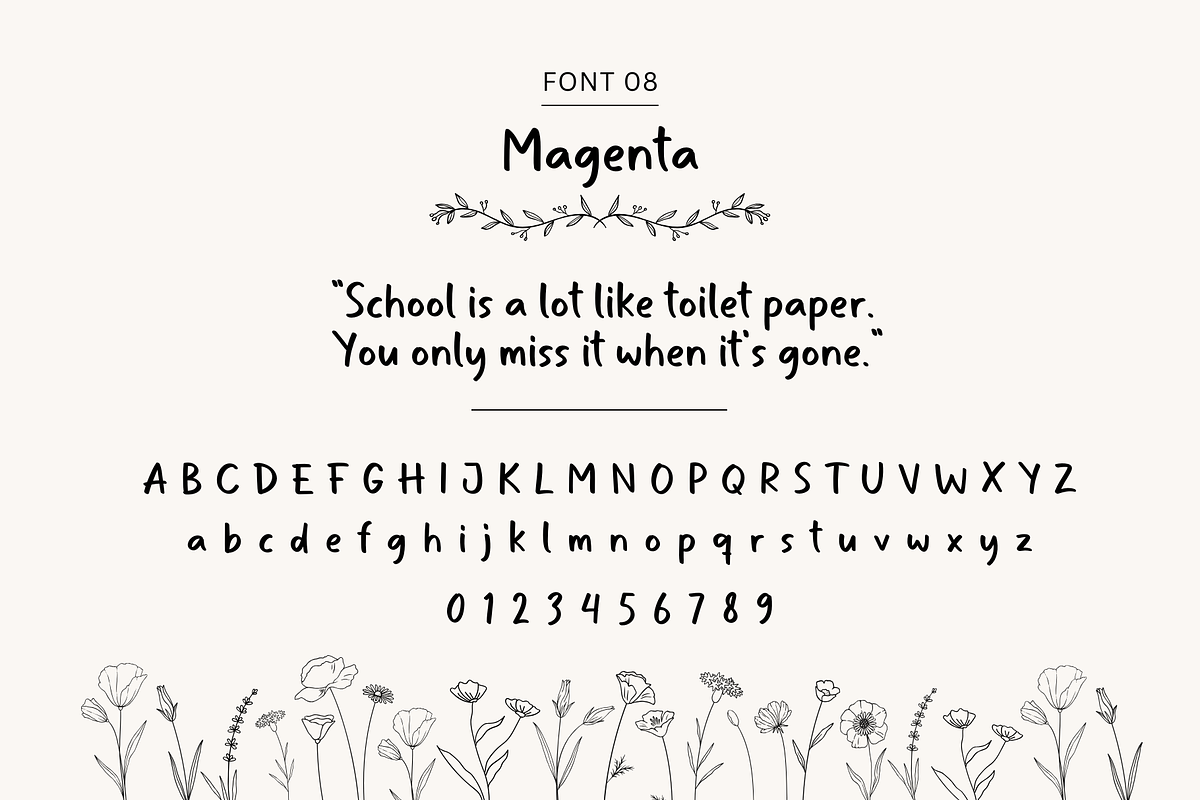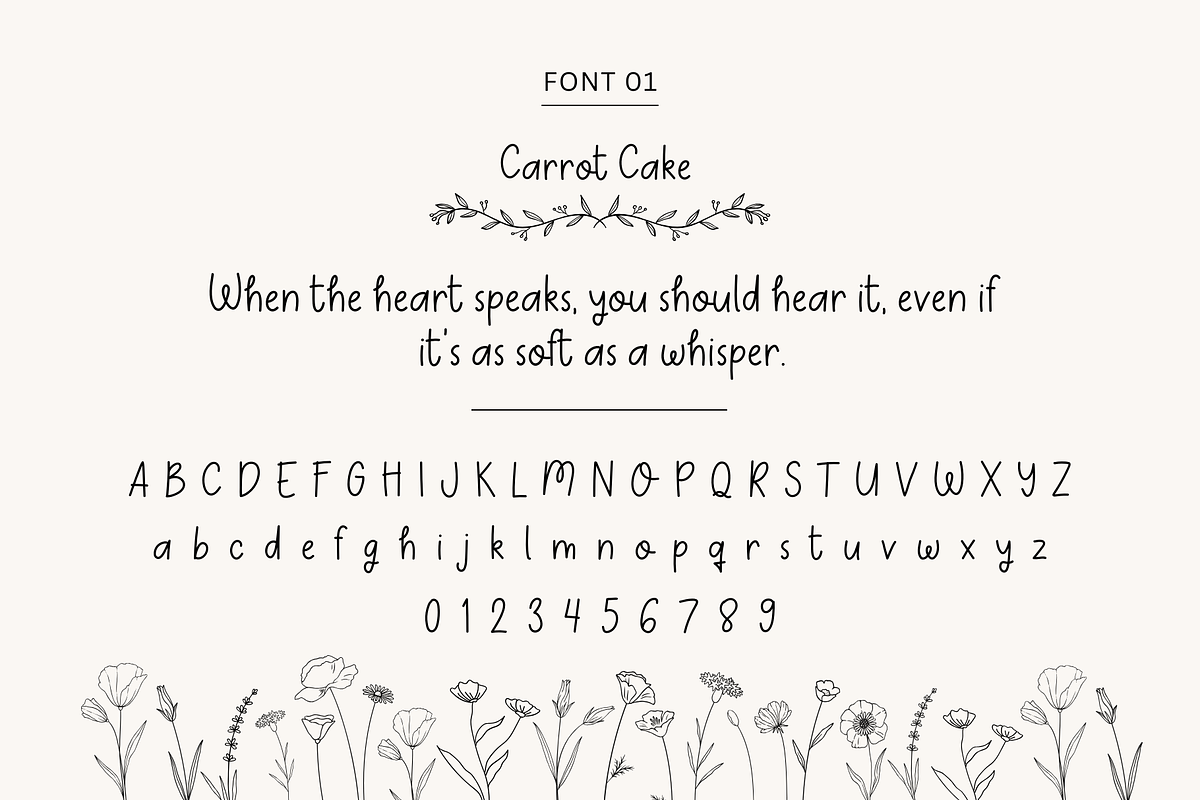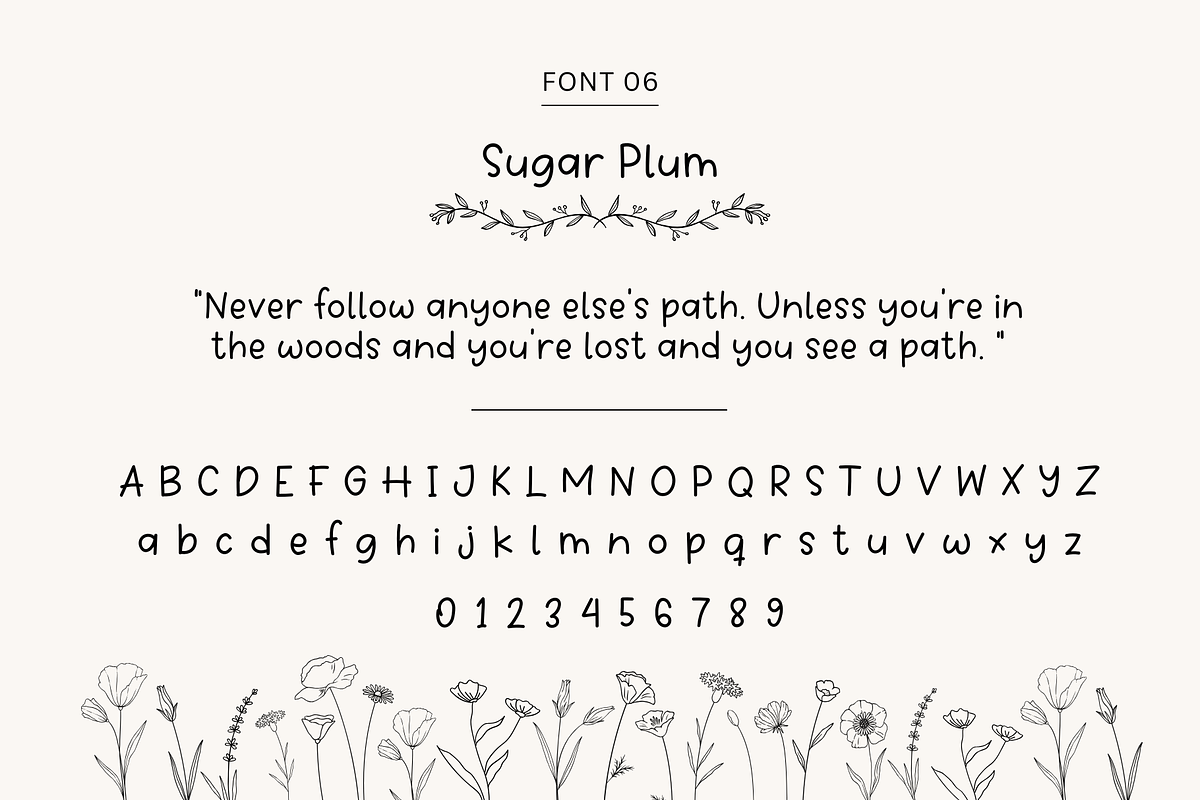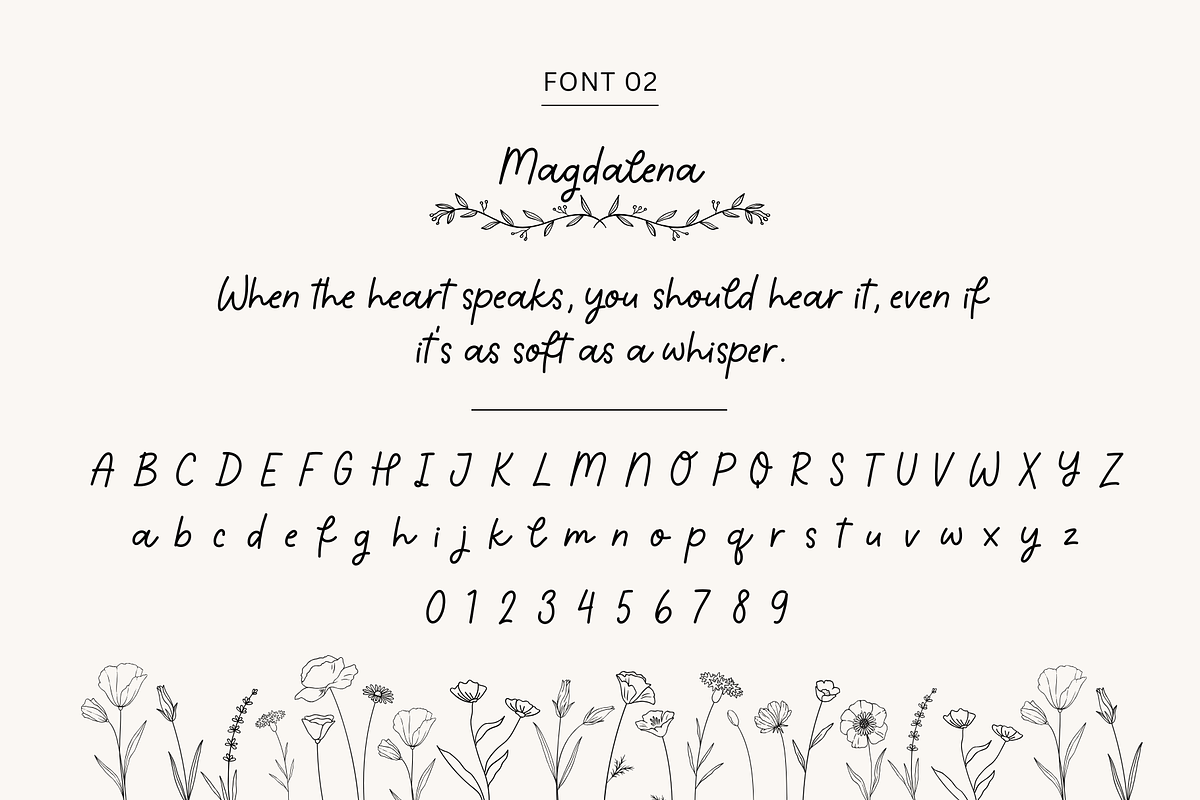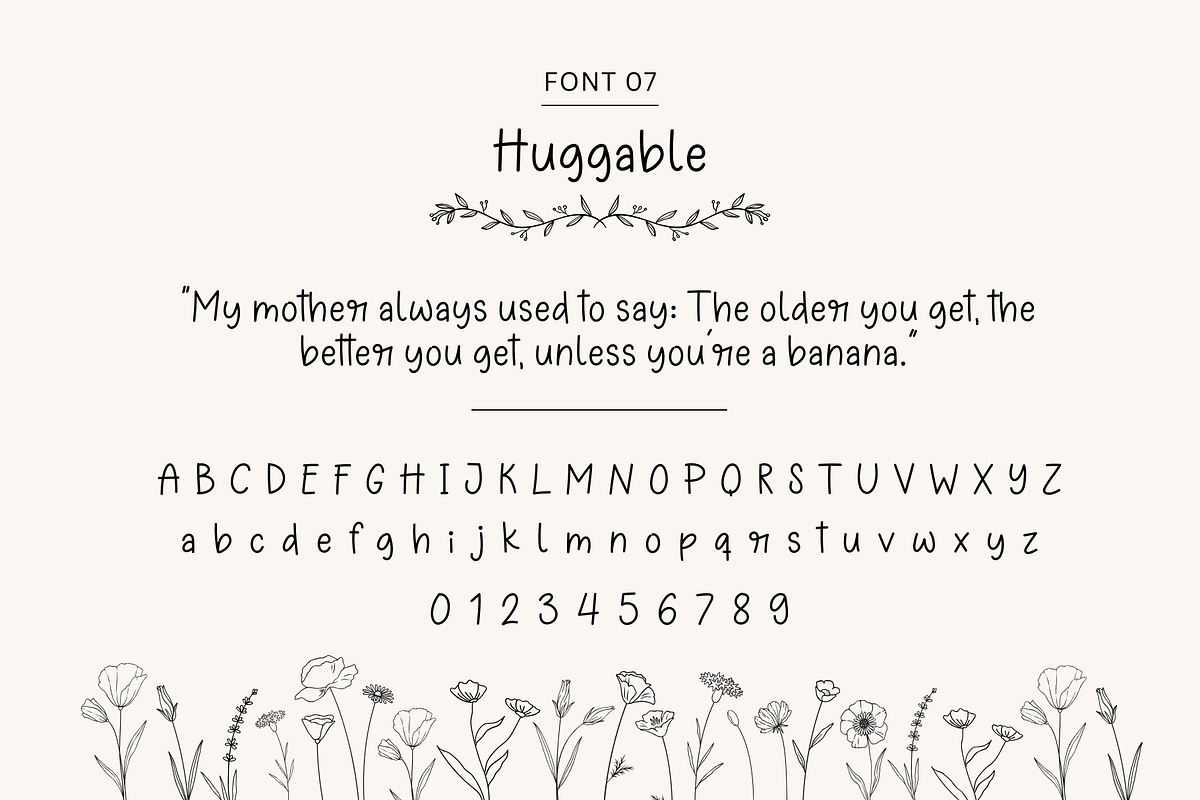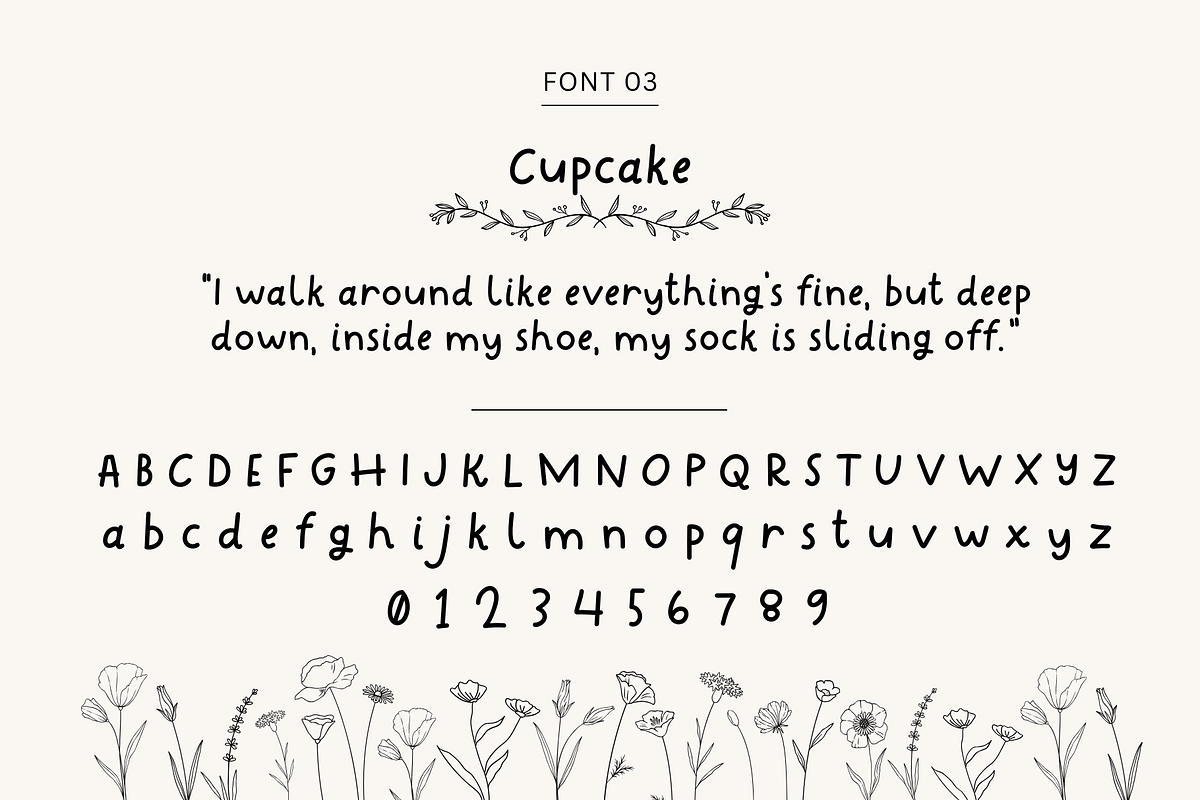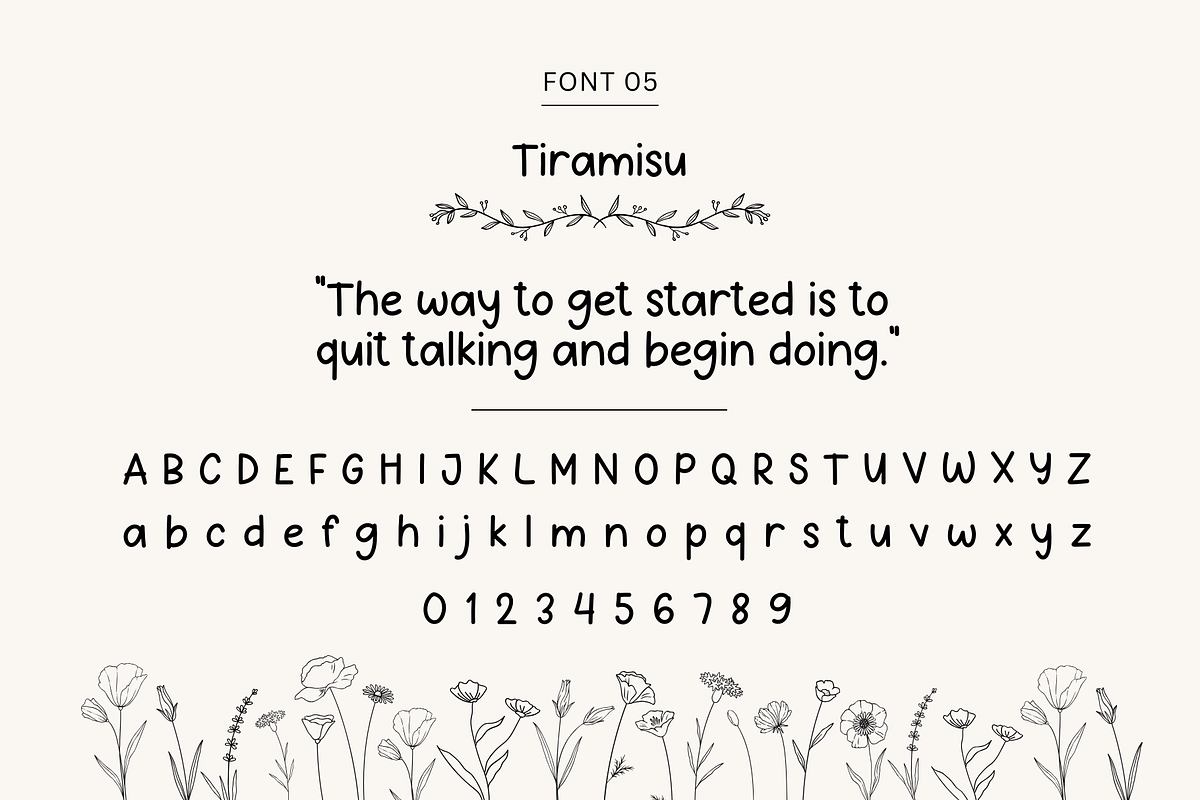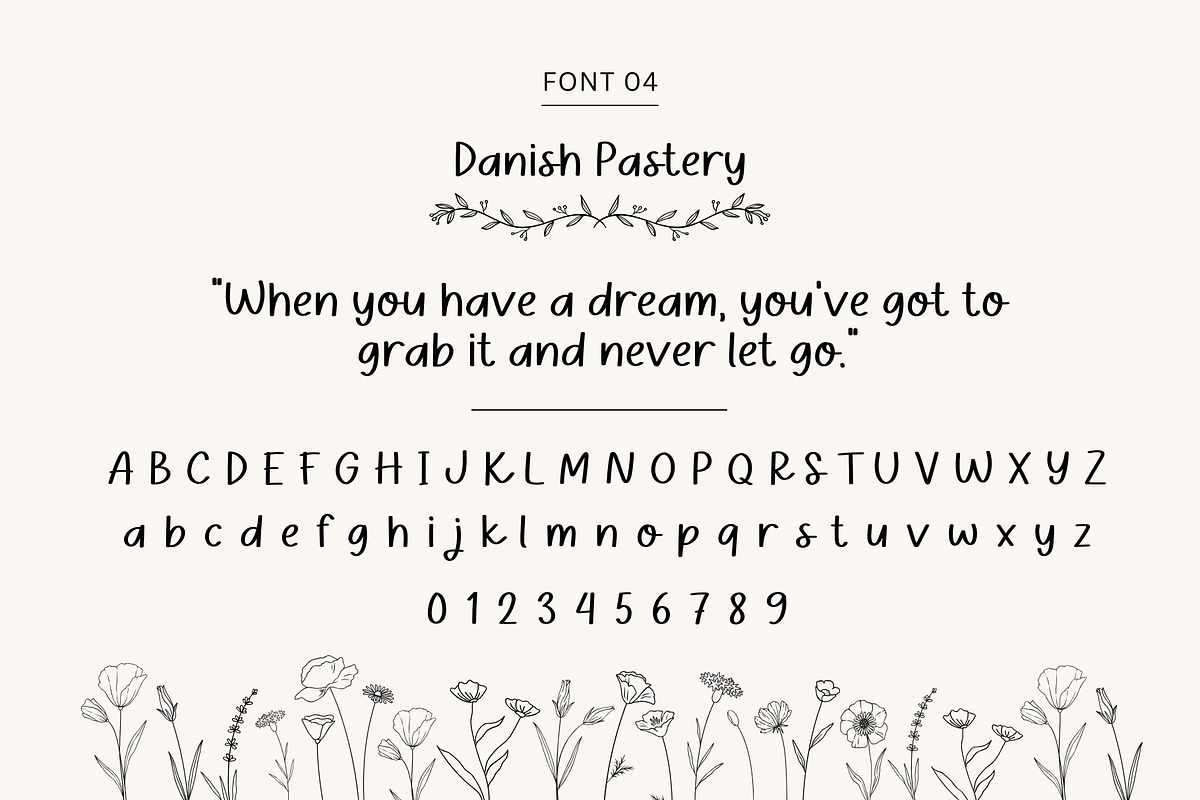
Handwriting Bundle 2
A bundle of 8 unique handwritten fonts. Perfect for digital notes and planners, and other fun projects that require a cute handwriting style.
Fonts included in the bundle:
Carrot Cake
Magdalena
Cupcake
Tiramisu
Danish Pastry
Sugar Plum
Huggable
Magenta